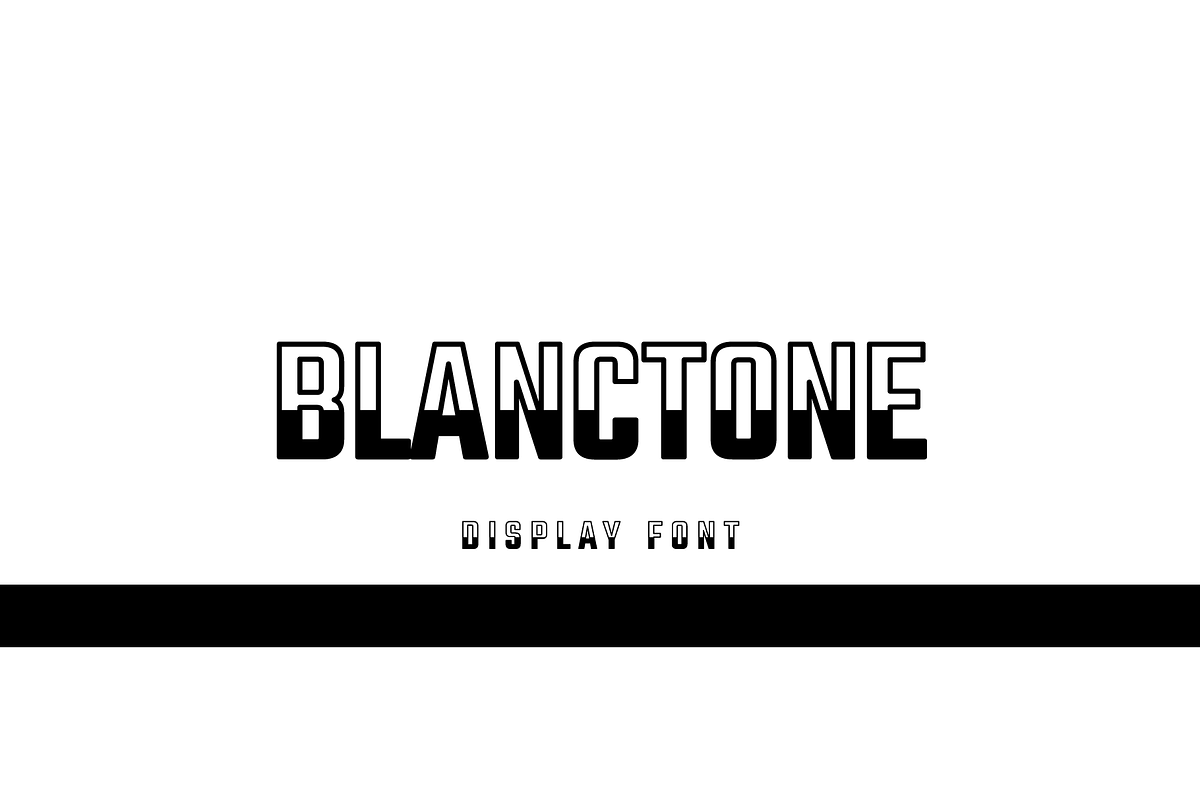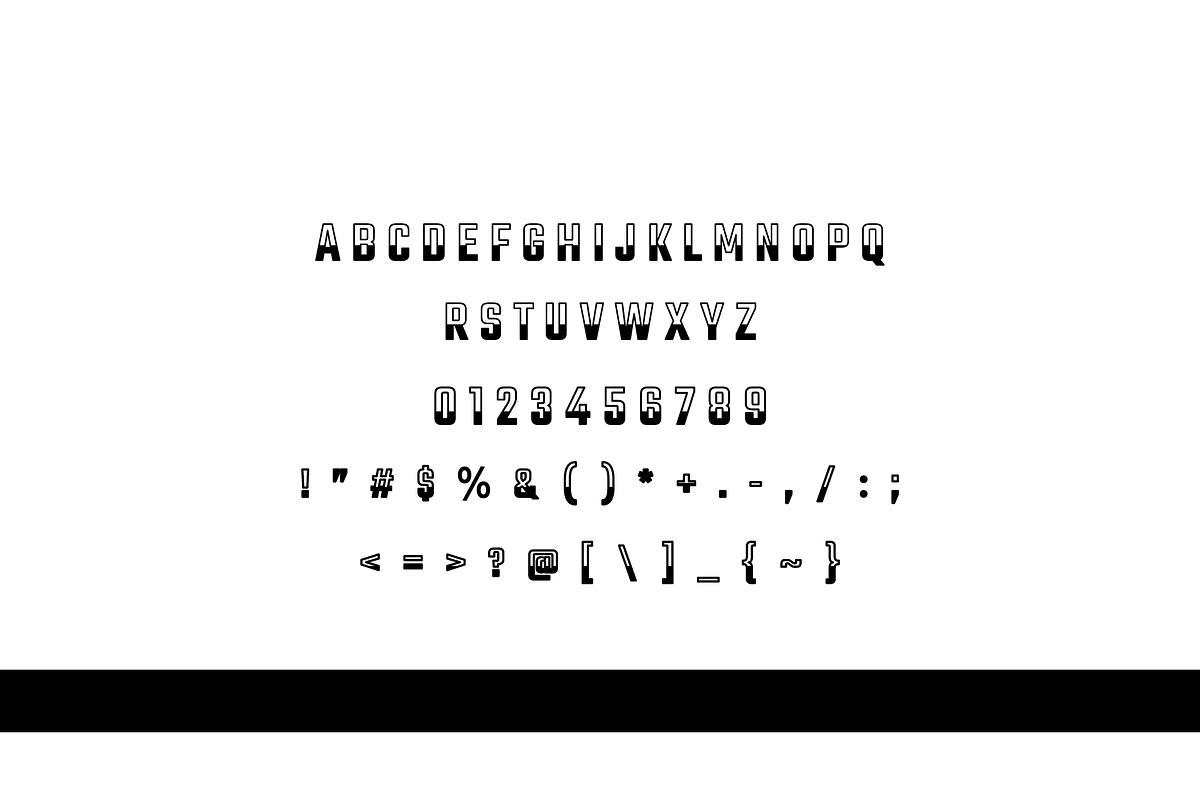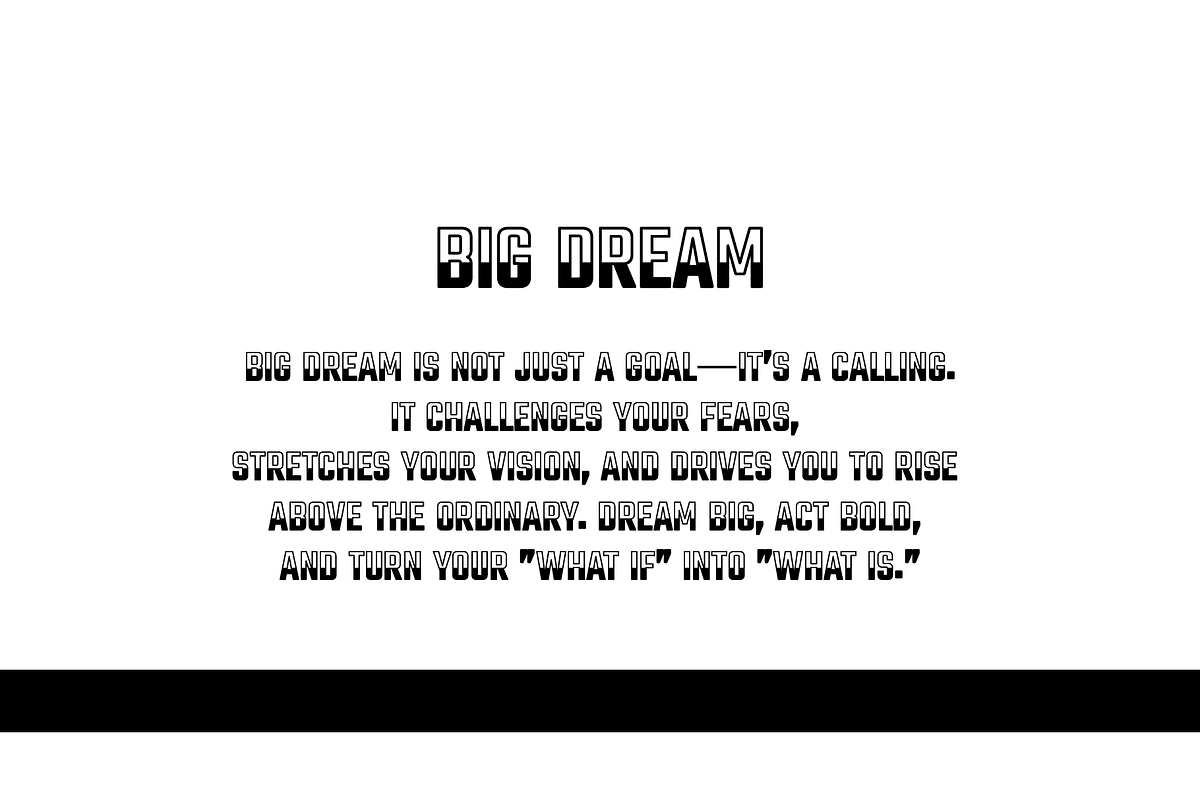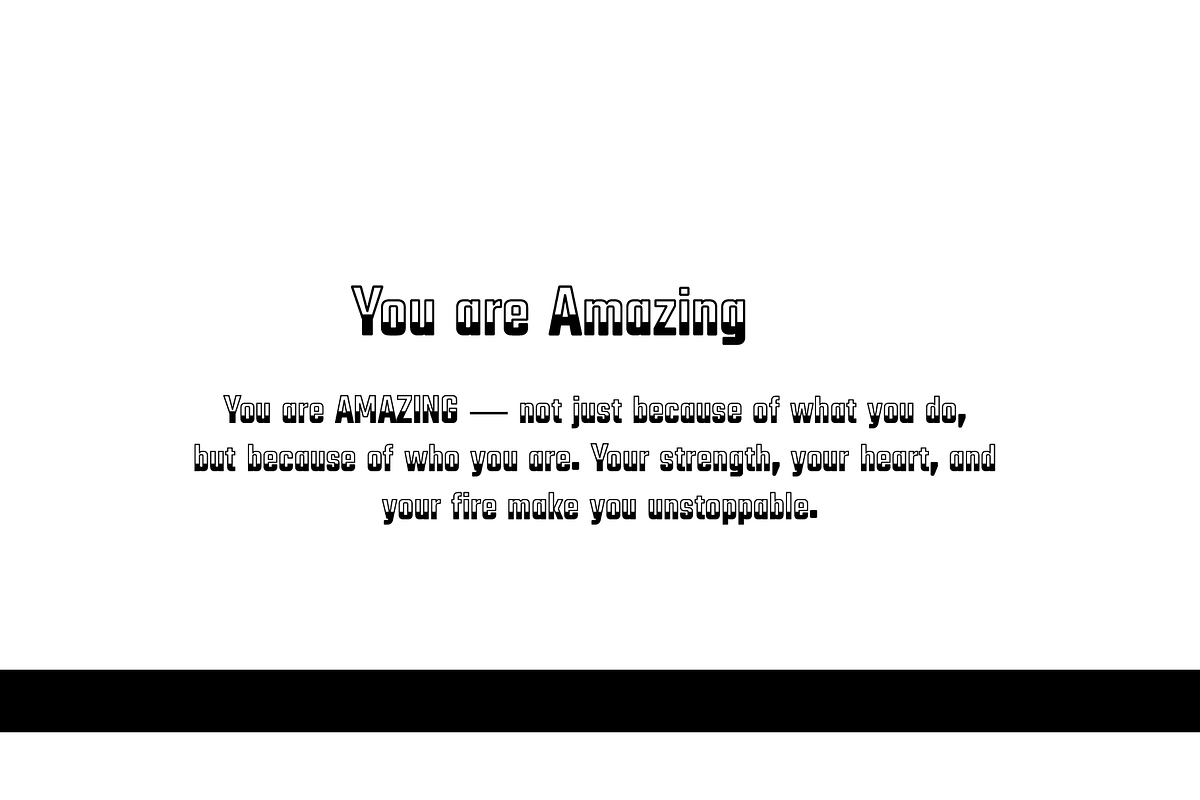
Blanctone Sans Serif Display
Blanctone is a new addition to the world of typography. This font is casual, friendly, and perfect for any kind of creative endeavor you may be using.
Timeless, Clean & Versatile — The Perfect Font for Any Design
Contains all capital letters, numbers, and basic punctuation.